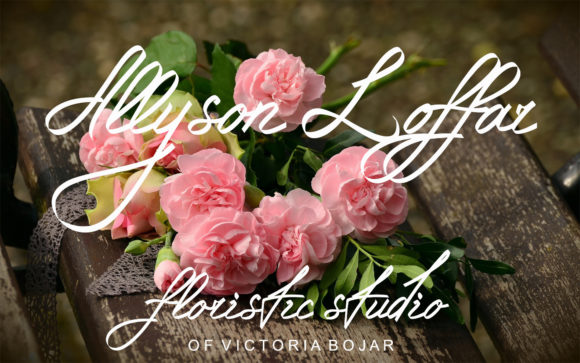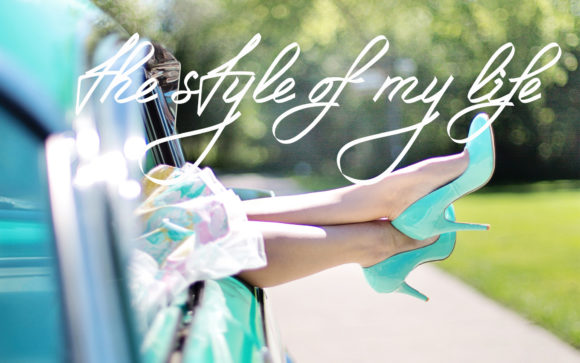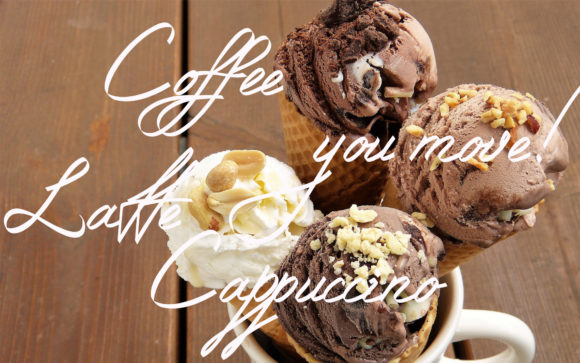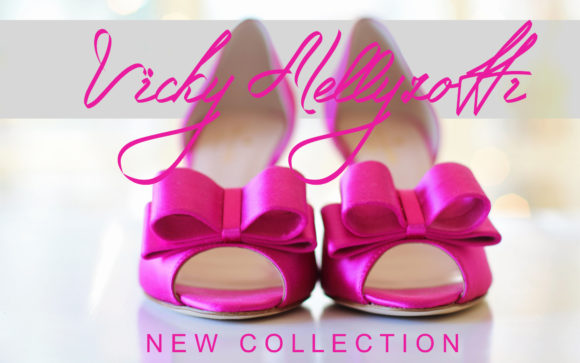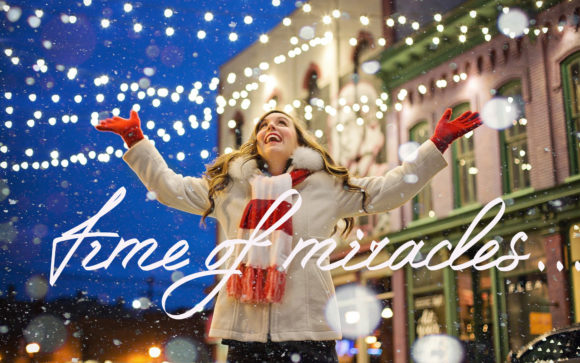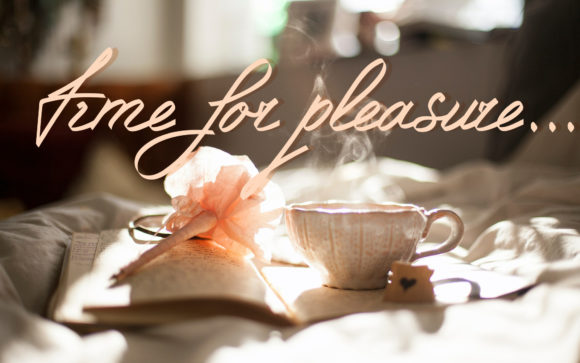
Introducing Galyna Leaffe Font: A Delicate and Stylish Script Font
Are you a designer or crafter looking for a font that can add a touch of magic to your designs? Look no further than Galyna Leaffe Font. This beautiful script font is a perfect blend of modern and whimsical styles, making it ideal for a wide range of design projects. In this article, we’ll take a closer look at Galyna Leaffe Font and explore its features, benefits, and uses.
A Modern yet Whimsical Style
Galyna Leaffe Font is a delicate and stylish script font that boasts a modern yet whimsical style. Its elegant and flowing lines make it perfect for designs that require a touch of sophistication and playfulness. The font’s unique and distinctive style will undoubtedly immerse your designs into a magical world, making them stand out from the crowd.
Key Features of Galyna Leaffe Font
So, what makes Galyna Leaffe Font so special? Here are some of its key features:
- Delicate and stylish: Galyna Leaffe Font is a beautifully crafted font that exudes elegance and sophistication.
- Modern yet whimsical: The font’s unique style blends modern and whimsical elements, making it perfect for designs that require a touch of playfulness.
- Script font: Galyna Leaffe Font is a script font, making it ideal for designs that require a personal and human touch.
- High-quality: The font is designed to high standards, ensuring that it looks great in any design project.
Benefits of Using Galyna Leaffe Font
So, why should you choose Galyna Leaffe Font for your design projects? Here are some of the benefits of using this beautiful font:
- Adds a touch of magic: Galyna Leaffe Font can add a touch of magic to your designs, making them more engaging and captivating.
- Perfect for a wide range of designs: The font is versatile and can be used for a wide range of design projects, from branding and advertising to packaging and crafting.
- Highly legible: The font is highly legible, making it perfect for designs that require a clear and easy-to-read text.
Uses of Galyna Leaffe Font
Galyna Leaffe Font is a versatile font that can be used for a wide range of design projects, including:
- Branding and advertising: The font is perfect for branding and advertising projects that require a touch of elegance and sophistication.
- Packaging design: Galyna Leaffe Font can be used for packaging design projects that require a clear and easy-to-read text.
- Crafting and scrapbooking: The font is ideal for crafting and scrapbooking projects that require a personal and human touch.
- Digital design: Galyna Leaffe Font can be used for digital design projects, such as social media graphics, blog posts, and website designs.
In conclusion, Galyna Leaffe Font is a beautiful and versatile script font that can add a touch of magic to your designs. Its modern yet whimsical style makes it perfect for a wide range of design projects, from branding and advertising to packaging and crafting. With its delicate and stylish lines, high-quality design, and ease of use, Galyna Leaffe Font is a must-have font for any designer or crafter looking to create engaging and captivating designs.
Tips and Tricks for Using Galyna Leaffe Font
Here are some tips and tricks for getting the most out of Galyna Leaffe Font:
- Use it sparingly: Galyna Leaffe Font is a beautiful font, but it can be overwhelming if used too much. Use it sparingly to add a touch of elegance and sophistication to your designs.
- Experiment with different sizes: The font looks great in various sizes, so experiment with different sizes to find the one that works best for your design.
- Pair it with other fonts: Galyna Leaffe Font can be paired with other fonts to create a unique and interesting design.